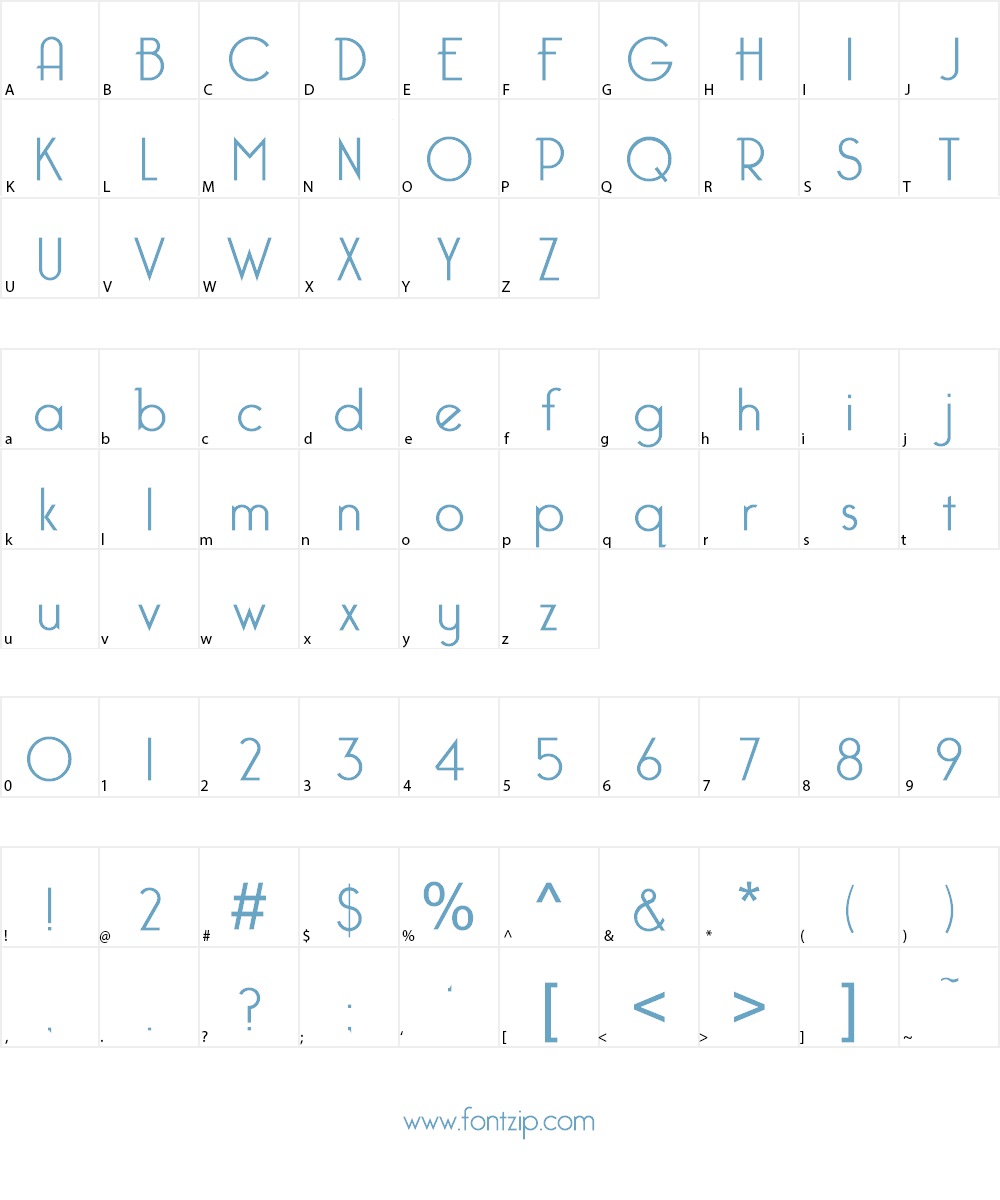
BELLEROSE is an art deco TrueType-compatible display typeface based on Capone. This font has uppercase, lowercase, numerals, punctuation, and foreign accent characters. It was created entirely with Letraset's FontStudio 2.0. No autotracing was used. The font was completely rendered by hand. There are over 10,000 kerning pairs! I know this sounds like overkill, but FontStudio automatically created the pairs, and unlike most other commercial typefaces, all foreign accent characters are kerned with everything else, making the font complete even for overseas use.